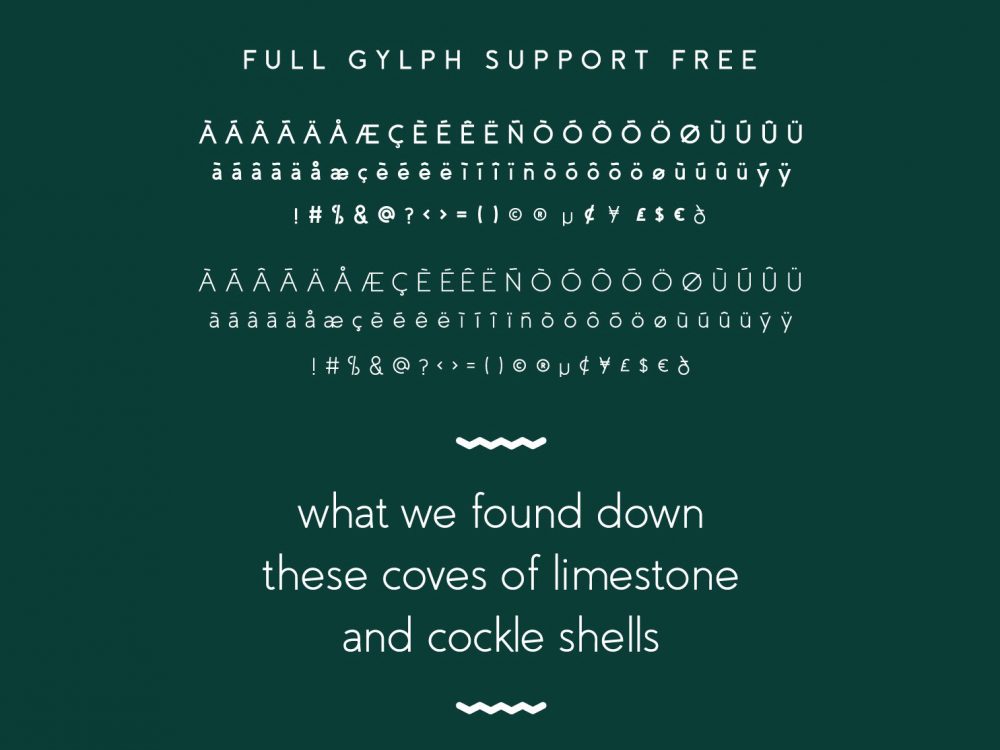
Coves Free Font
Coves Free Font is a beautiful and interesting modern font that will be very well suited for many design projects because it has a modern style. Use this font to create posters, cards, branding, flyers, prints, and more. If you want to use it for commercial use please buy the full version.